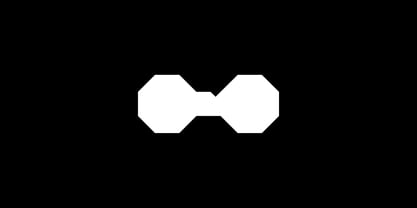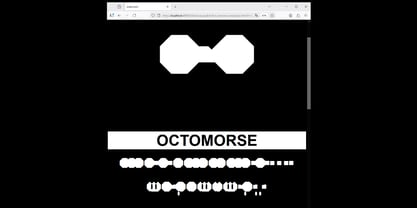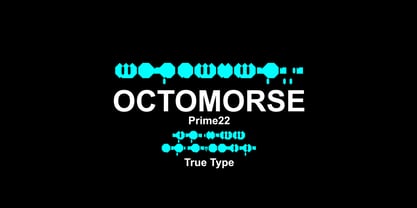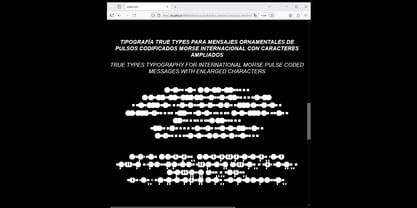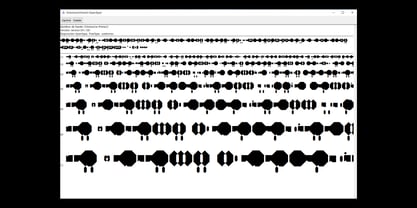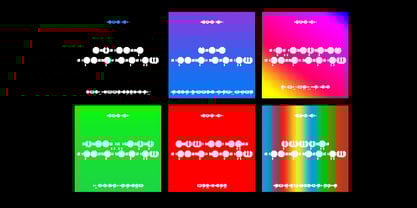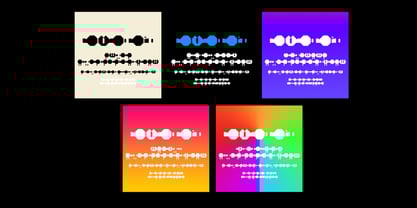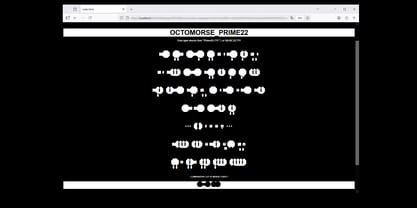
Octomorse Prime22
by Octomorse
The Octomorse Prime22 Font Family was designed by Federico Lucas Köhn and published by Octomorse. Octomorse Prime22 contains 1 styles.
Octomorse was designed as an expanded character set compared to the international standard Morse code, acting as an encoder and encryptor of textual information, both simple linear messages and other sequences derivable from pulse or frequency modules. This recently developed and launched typeface comes in two styles, called "Basic22" and "Prime22." The written result is a cryptic and artificial graphic style, with an octagonal rectangular geometric base suitable for graffiti and engraving tapestries, boards, and matrices on all types of surfaces or corporeal objects. This favors a minimalist ornamental aesthetic, oriented toward the art of code and functionalizing messages and phrases as abstract structures of articulated pulses, whether before human observers or other analog-digital interpreters for translation and assistance, expanding the readability experience of the telematic type in which it is printed and expressed.
Designers: Federico Lucas Köhn
Publisher: Octomorse
Foundry: Octomorse
Design Owner: Octomorse